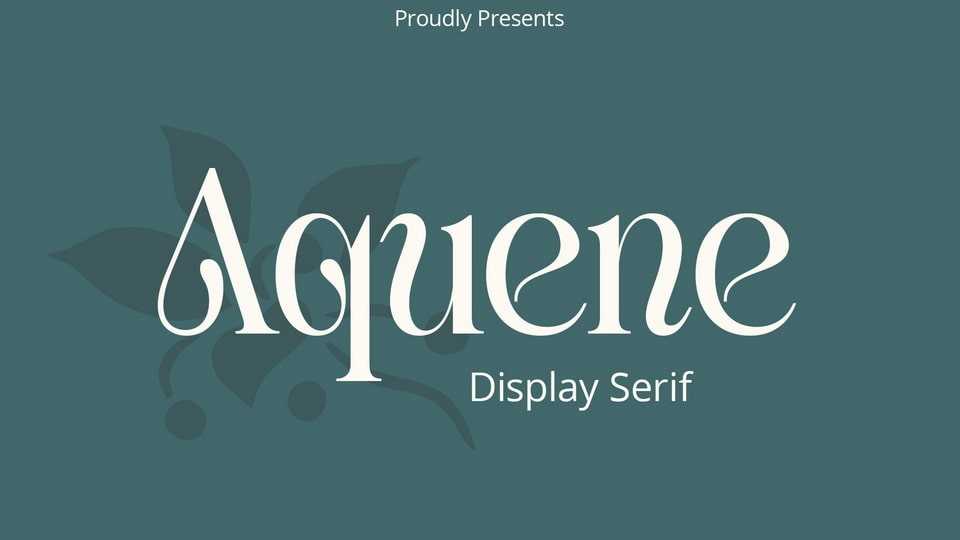
Download Aquene font, a display serif typeface designed to make your text stand out and captivate your audience. Aquene font boasts a distinctive flow that sets it apart.
Designer: Craft Supply Co